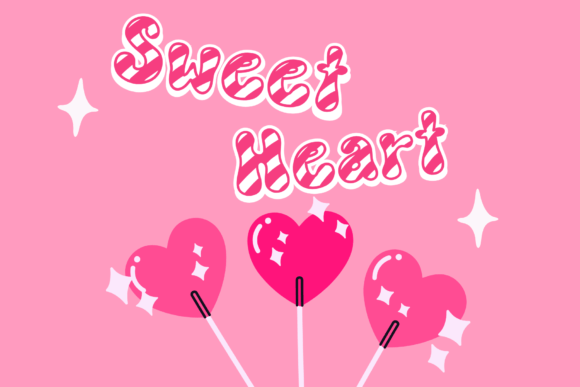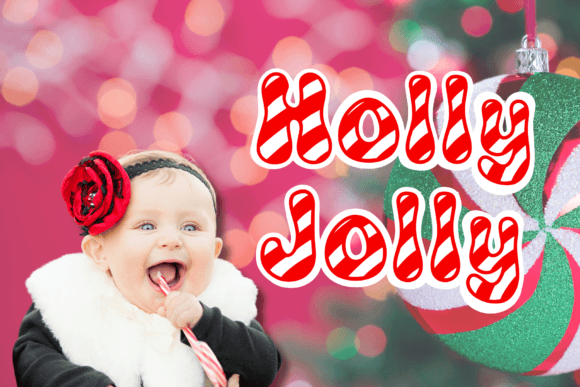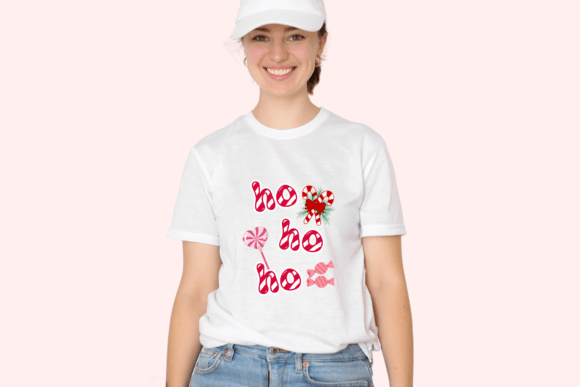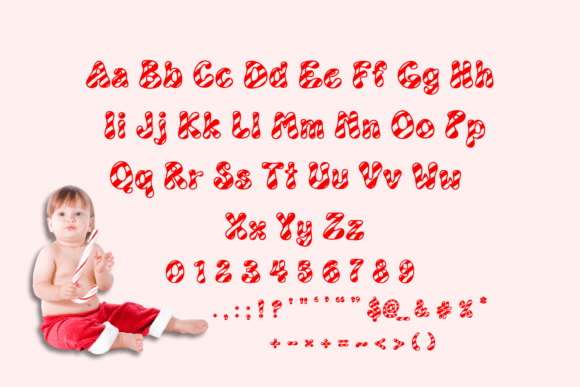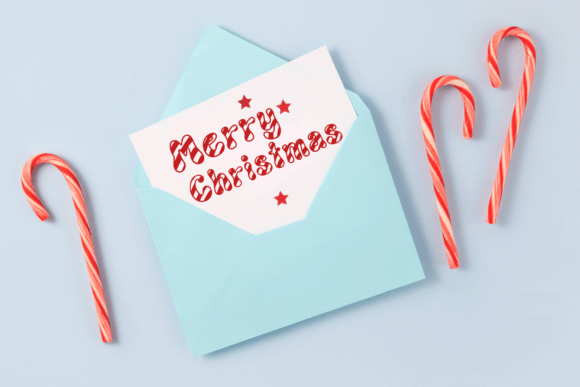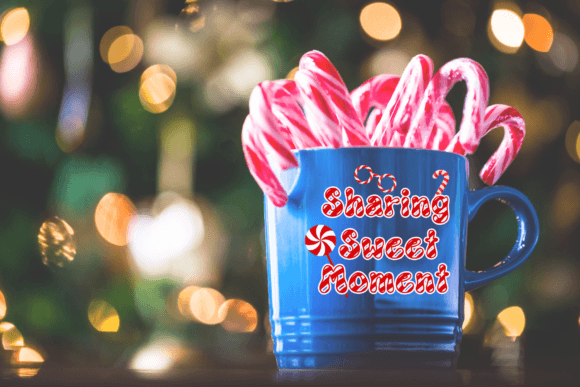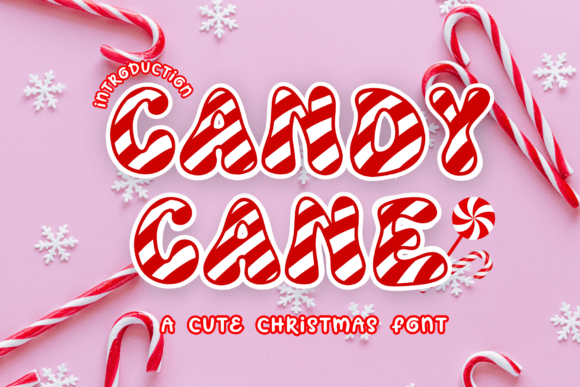
Candy Cane Font: A Festive and Unique Decorative Font for Christmas Designs
Do you remember the very first time you saw a candy cane hanging on a Christmas tree branch? Can you recall the minty taste, sometimes with a slight flavor of cinnamon? Can you evoke in your mind the scent of the tree filling up the room? Well, if you do, you can appreciate the Candy Cane Font, and use it to bring those memories to print.
Candy Cane Retro is a fun, festive, and incredibly unique decorative font that is perfect for designers and crafters looking to add a touch of Christmas magic to their projects. This font is inspired by the classic candy canes that are a staple of the holiday season, and its design is sure to evoke feelings of nostalgia and joy.
The Story Behind the Candy Cane Font
The candy cane has a long history that dates back to the 17th century. According to legend, a choirmaster in Germany created the first candy canes as a way to keep children quiet during long church services. He shaped the candies into the form of a cane, which was a symbol of authority and respect at the time.
Today, candy canes are a beloved holiday treat that can be found in many different flavors and designs. The Candy Cane Font is a tribute to this classic treat, and its design is sure to bring a smile to the faces of anyone who sees it.
Features of the Candy Cane Font
The Candy Cane Font is a decorative font that is perfect for use in a variety of design projects, including:
- Christmas party decorations
- Gift tags and wrapping paper
This font has a number of features that make it unique and fun to use, including:
- A festive and playful design that is sure to add a touch of holiday cheer to any project
- A retro-style design that is reminiscent of classic candy canes
- A highly legible design that is easy to read, even in small sizes
- A wide range of characters and symbols, including letters, numbers, and punctuation marks
Using the Candy Cane Font in Your Designs
The Candy Cane Font is a versatile font that can be used in a variety of design projects. Here are a few ideas to get you started:
- Create a holiday card or invitation that features the Candy Cane Font as the main design element
- Use the font to create a festive header or title for your blog or website
- Add the font to your social media graphics and posts to add a touch of holiday cheer
- Use the font to create custom gift tags or wrapping paper
Tips and Tricks for Using the Candy Cane Font
Here are a few tips and tricks to help you get the most out of the Candy Cane Font:
- Use the font in combination with other holiday-themed design elements, such as holly, snowflakes, or Christmas trees
- Use the font to create a cohesive look across all of your holiday designs
- Don’t be afraid to get creative and try new things – the Candy Cane Font is a versatile font that can be used in many different ways
The Candy Cane Font is a fun, festive, and unique decorative font that is perfect for designers and crafters looking to add a touch of Christmas magic to their projects. With its highly legible design and wide range of characters and symbols, this font is sure to be a hit with anyone who sees it.
Whether you’re creating holiday cards and invitations, gift tags and wrapping paper, or social media graphics and posts, the Candy Cane Font is a great choice. So why not give it a try and see what kind of festive and fun designs you can create?